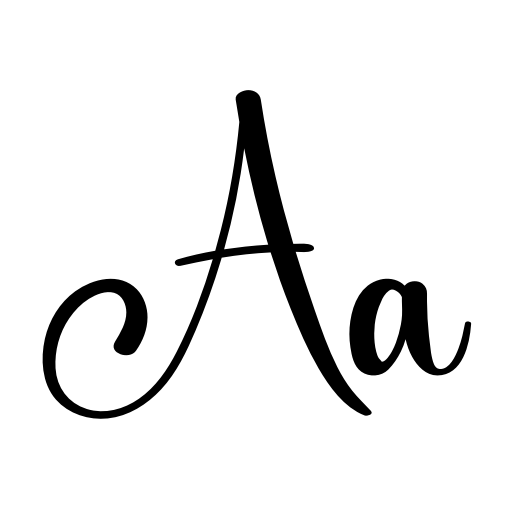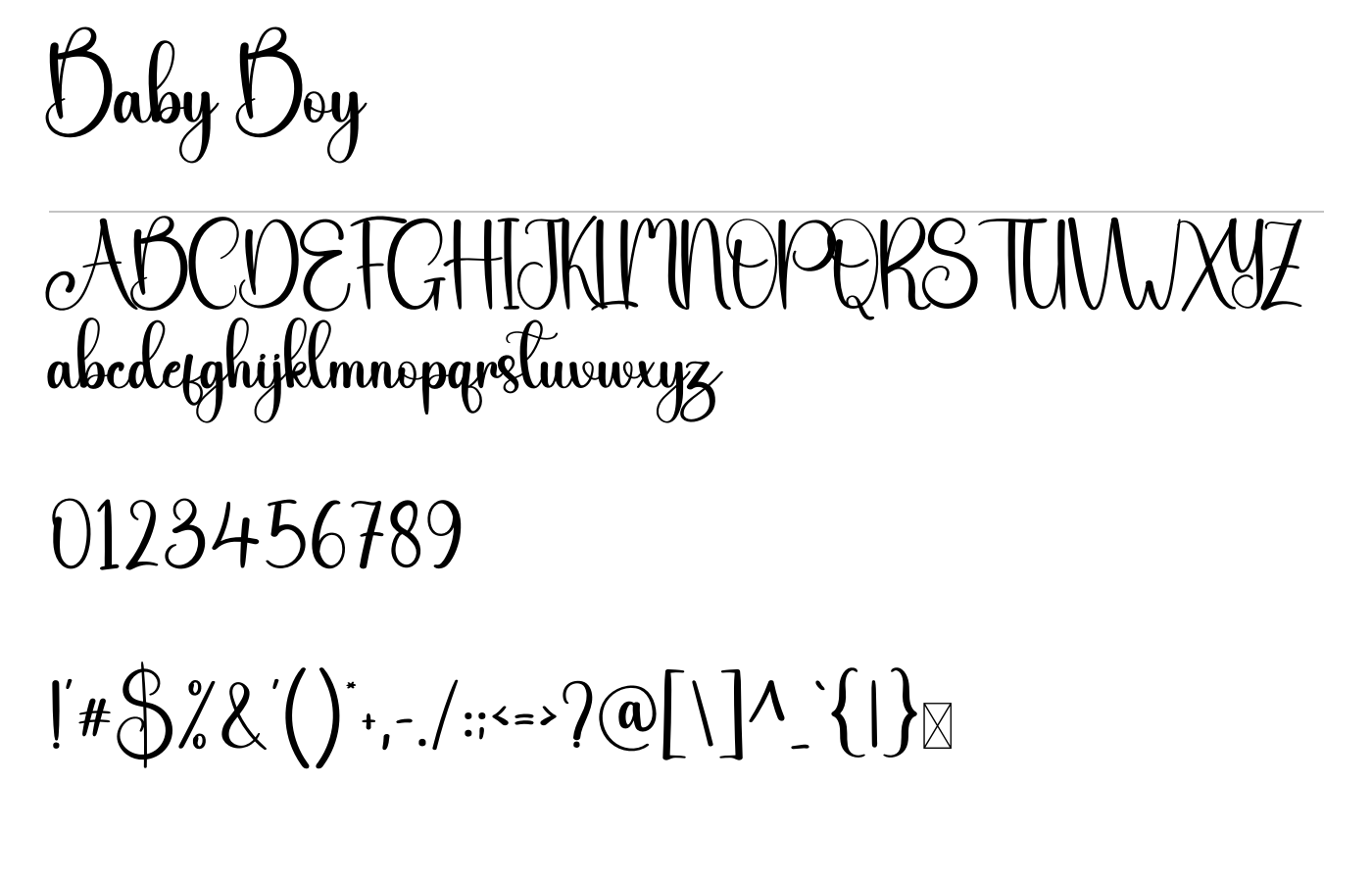
Baby Boy is a playful and elegant handwritten script font with tall, slender letterforms and whimsical curls that give it a light and friendly personality. Its mix of uppercase and lowercase styles features smooth, flowing curves and a casual charm, making it perfect for creative, youthful branding, invitations, and decorative use. This font works well for projects seeking a personal, approachable touch with stylish flair.
Baby Boy Font
About Baby Boy Font